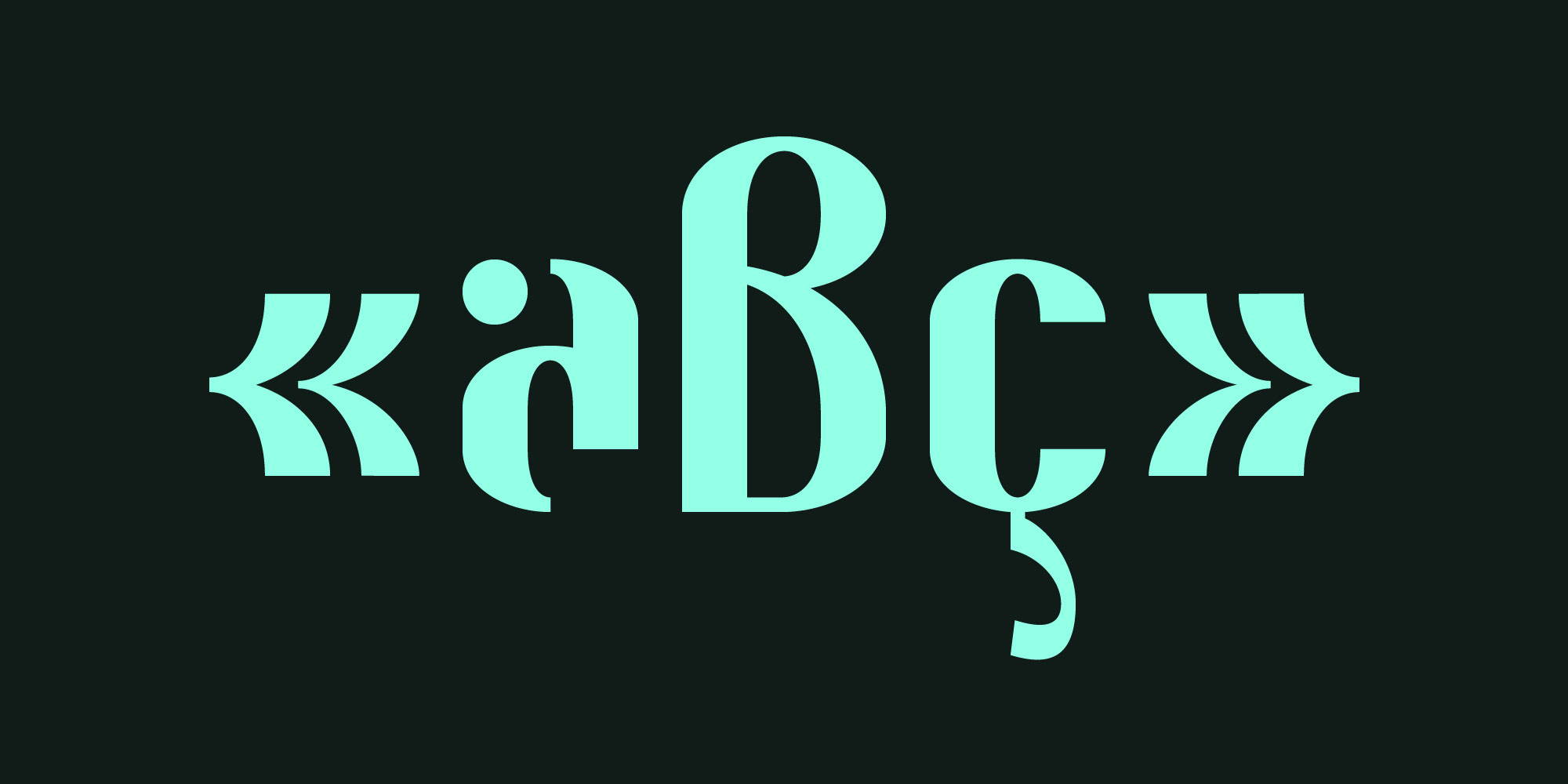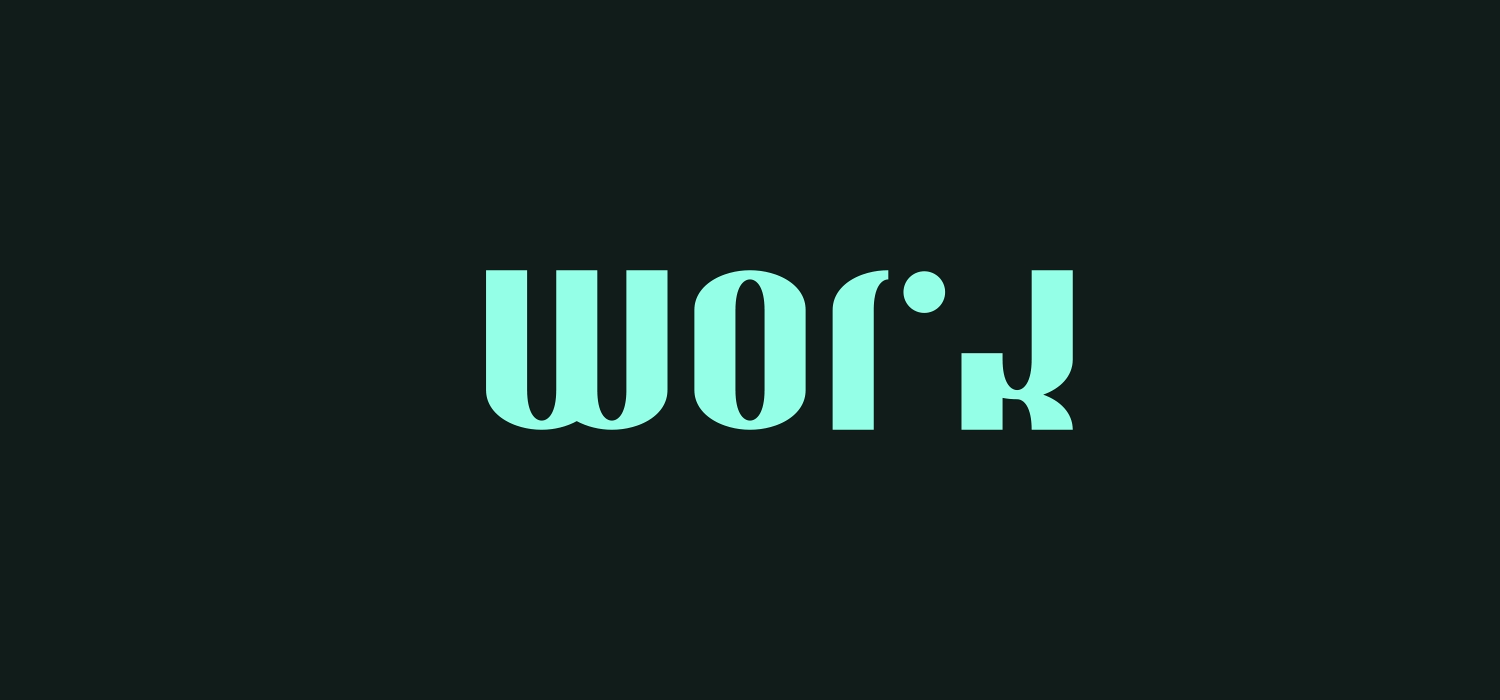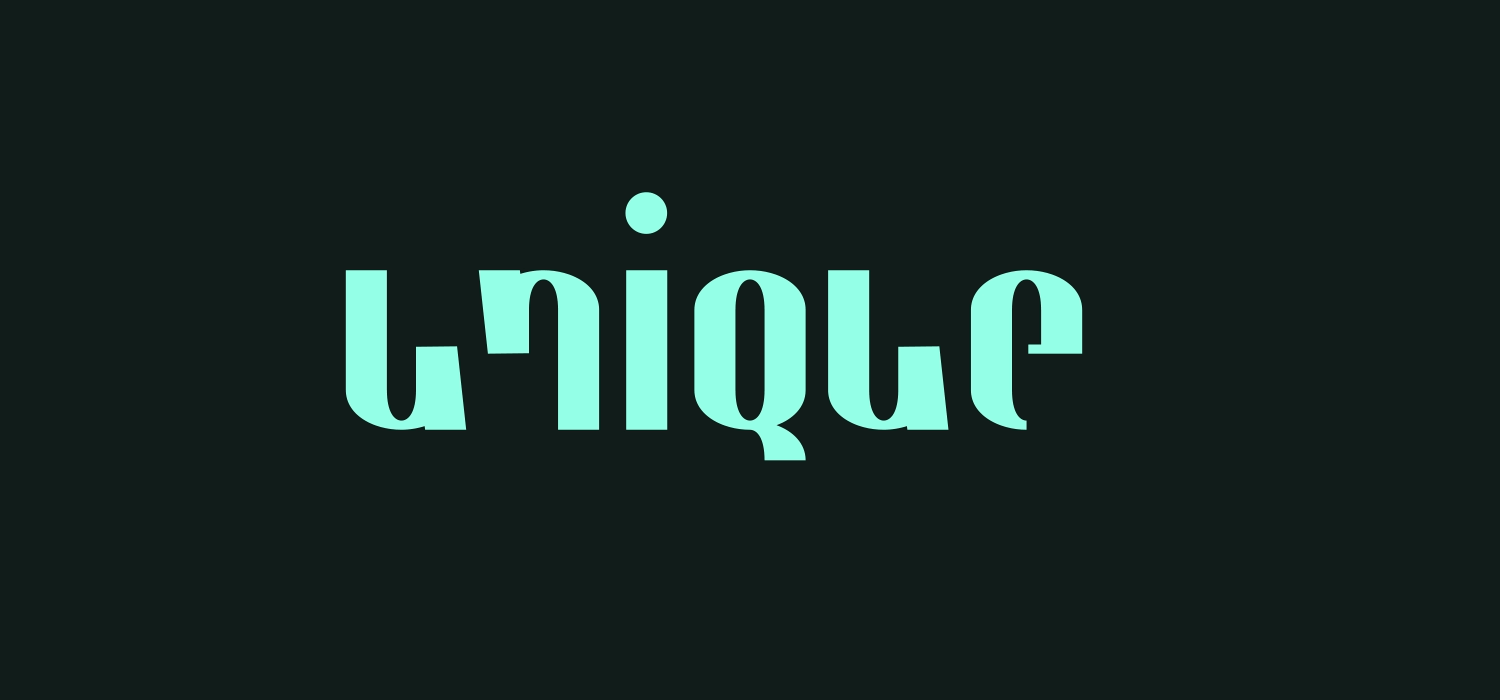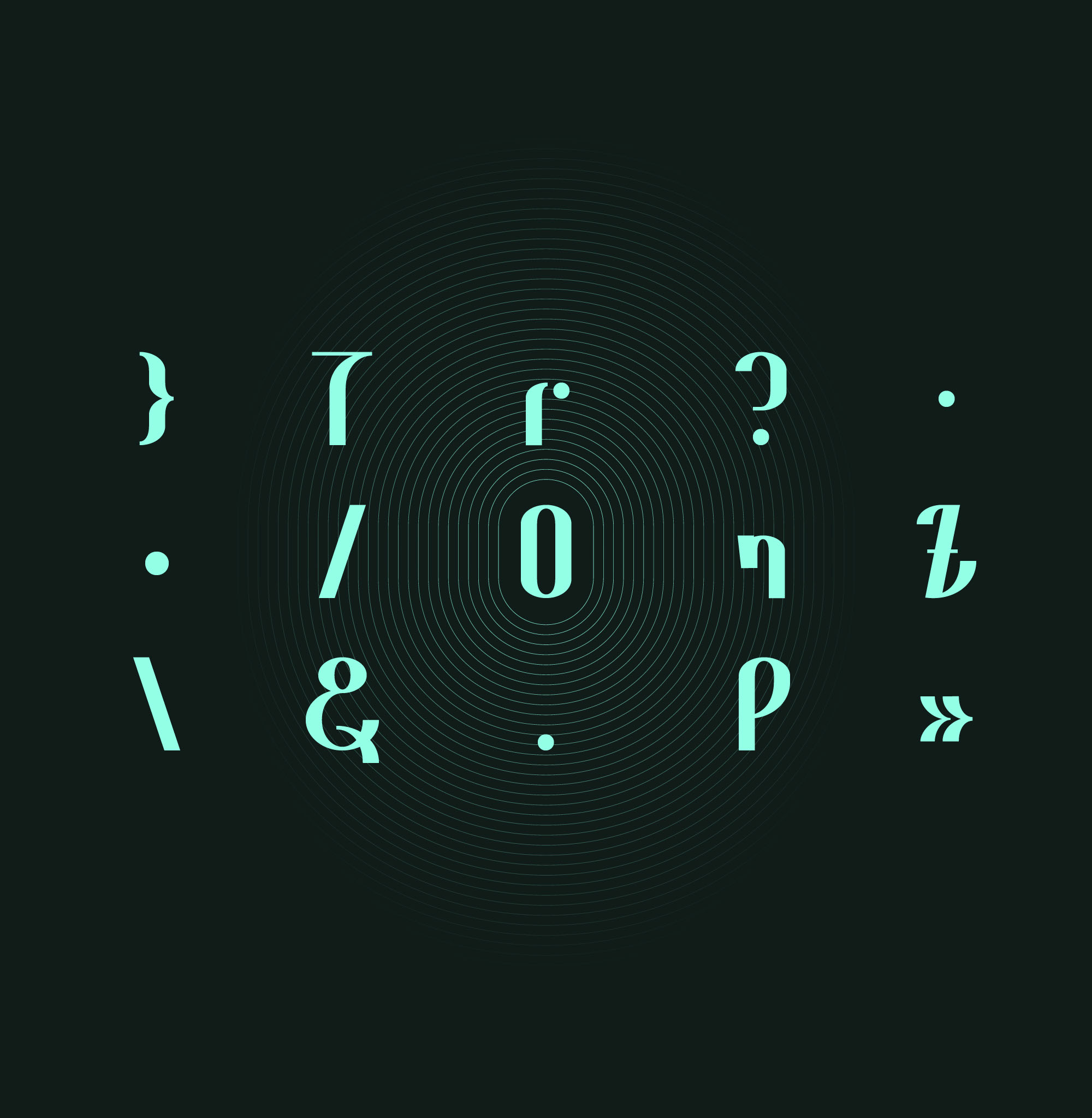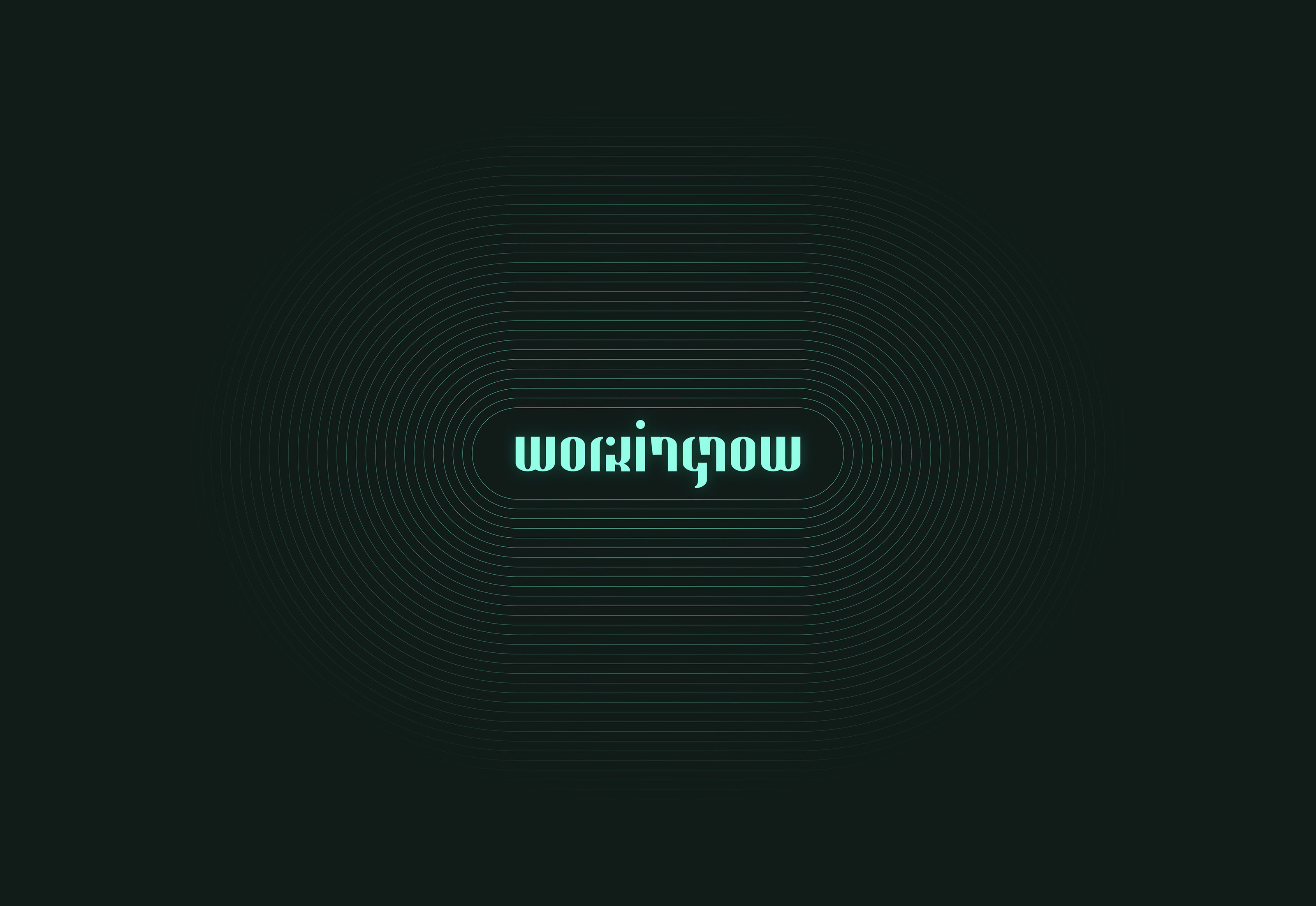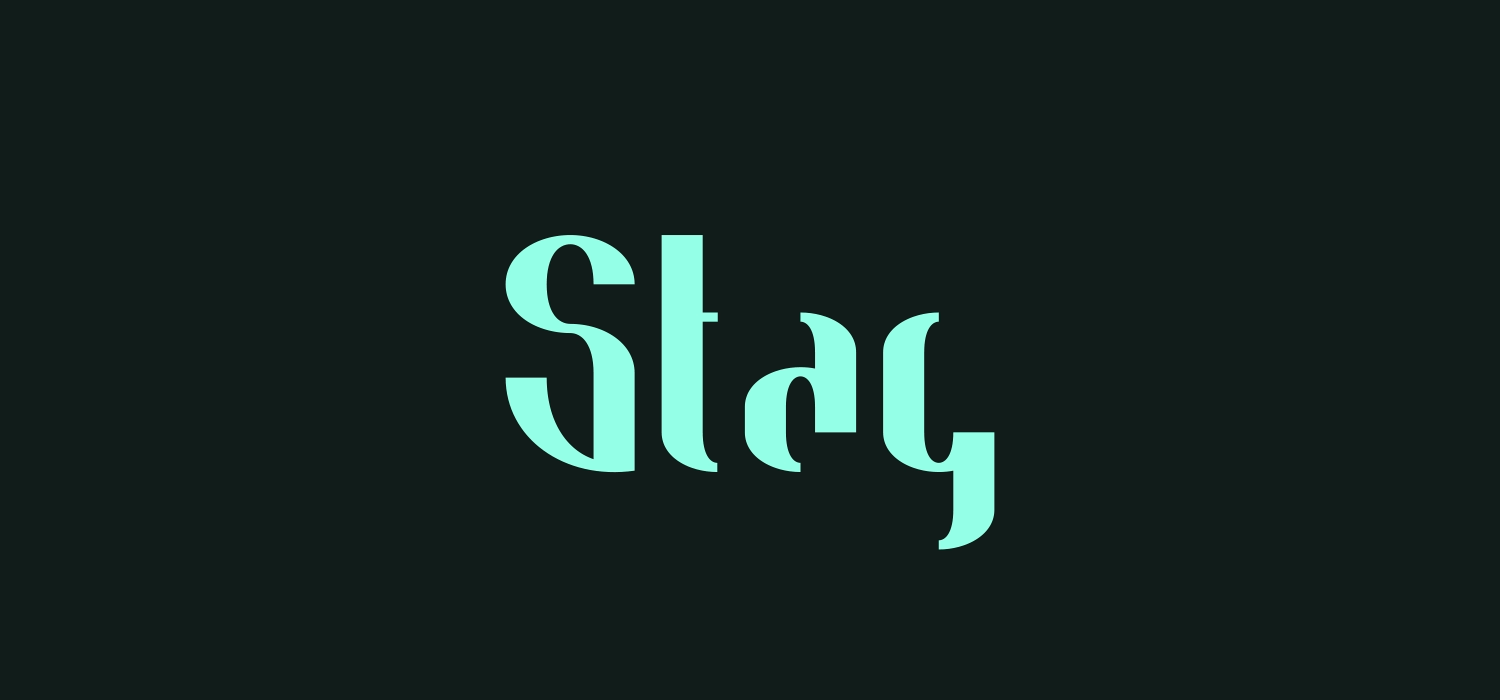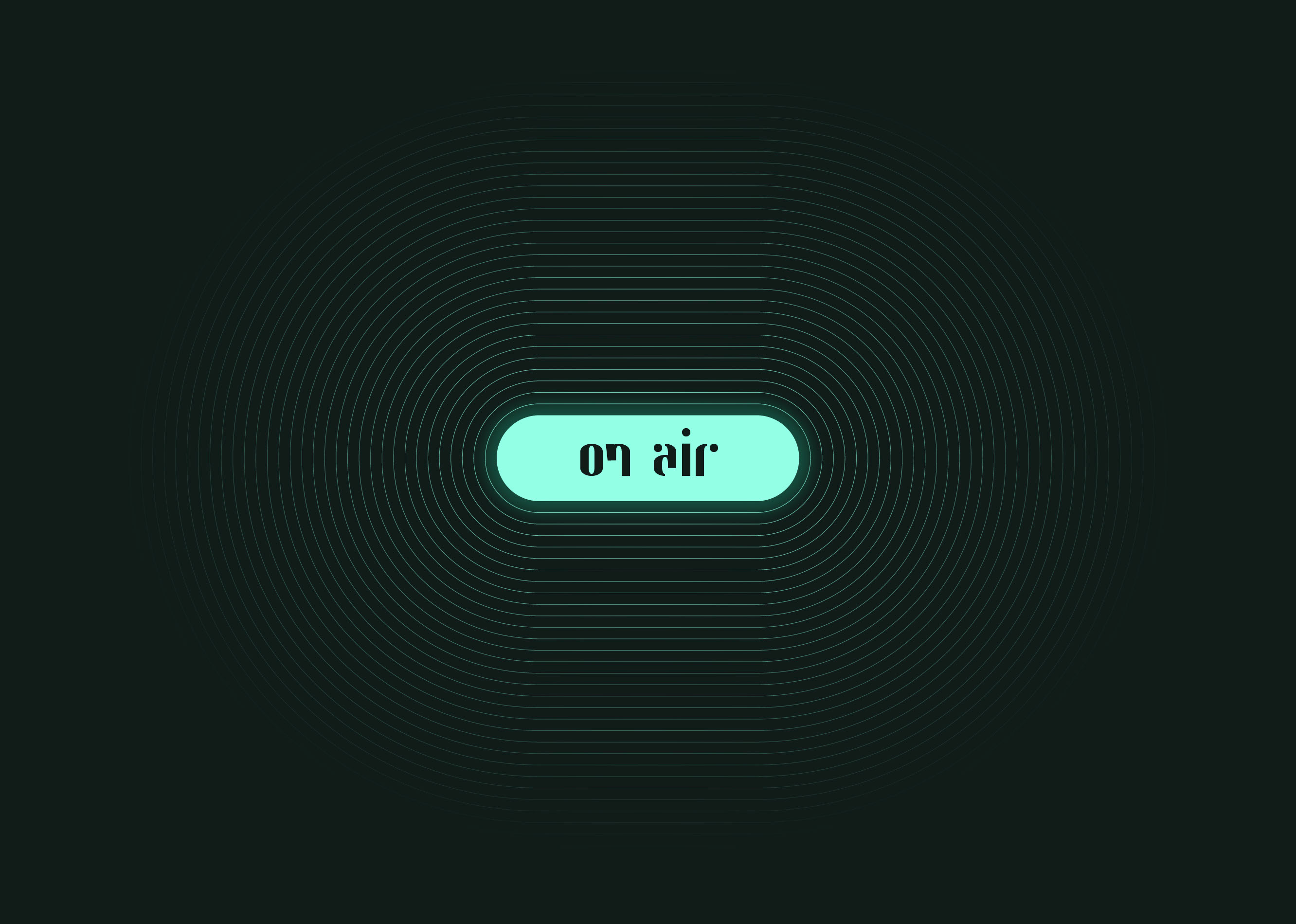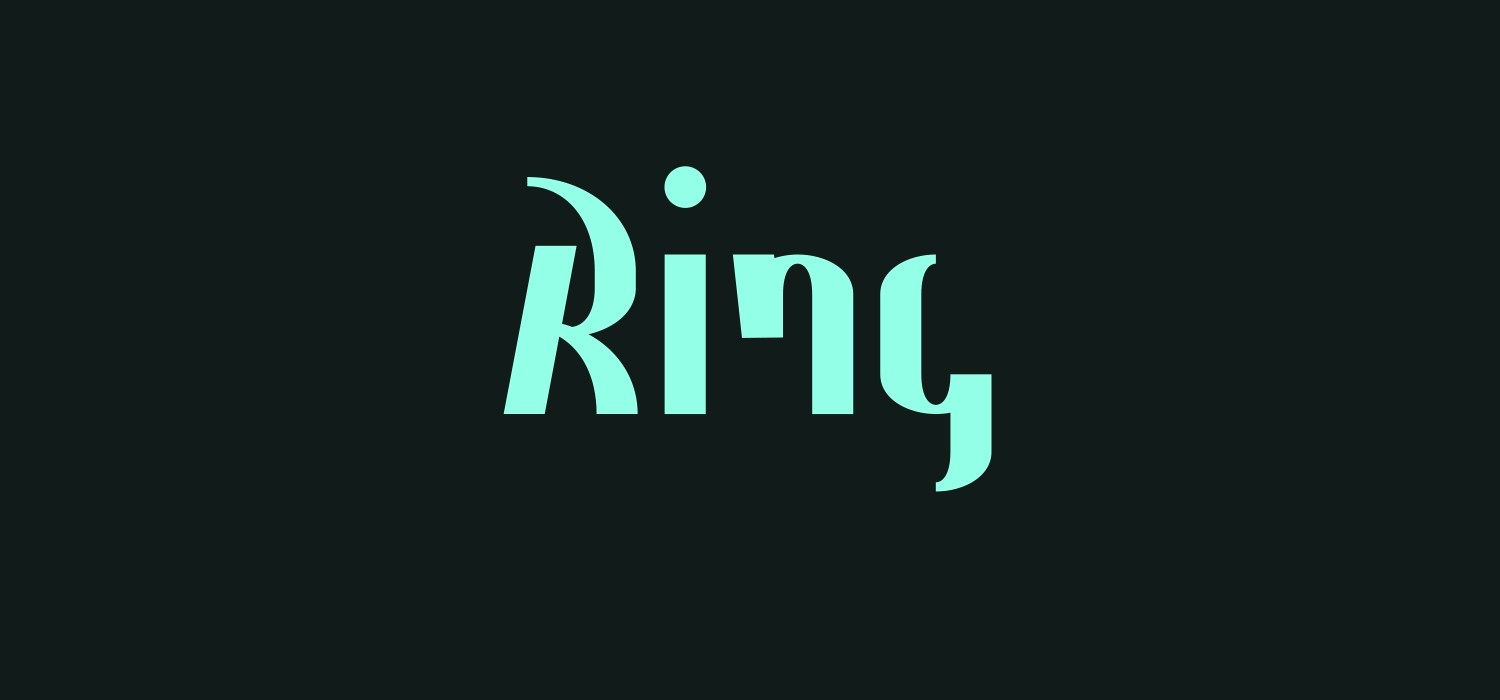
Ring Stag Font
It's important to realize that each of us is unique. I wish Ring Stag will emphasize it. Single but ready for anything. The new Ring Stag is bolder, more dynamic and masculine.
New addition to the big family called Ring!